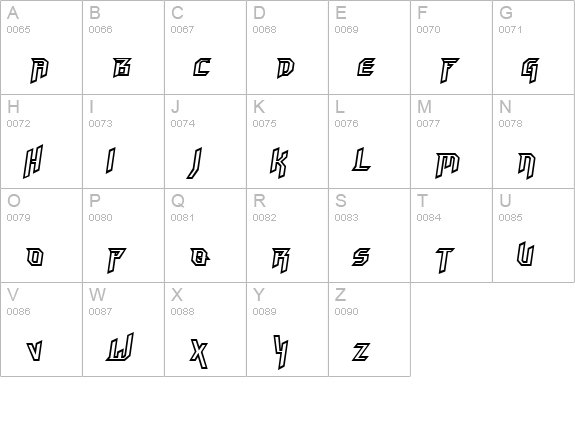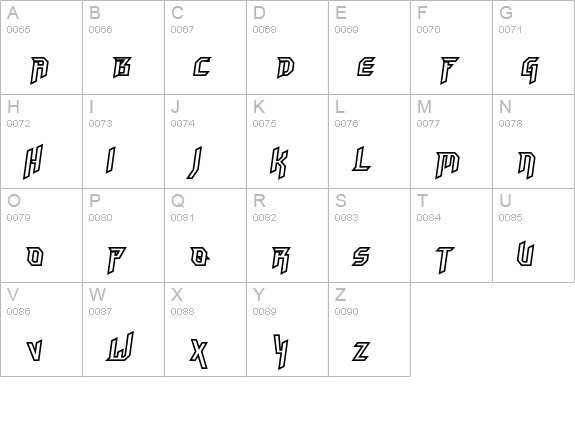
HammerheadOutline Italic Font Details
HammerheadOutline Italic is a distinctive, italic variant in the HammerheadOutline typeface family \xE2\x80\x94 well suited to design and typography projects.
HammerheadOutline Italic is a stunning and eye-catching font that will make any design project stand out. It is a perfect blend of boldness and elegance, making it ideal for both professional and creative endeavors. With its unique and distinctive letterforms, HammerheadOutline Italic exudes a sense of energy and dynamism that will captivate your audience. This font is freely available to download at FontsMarket.com, allowing you to bring your creative visions to life without any cost. Whether you are a graphic designer, web developer, or simply someone who appreciates beautiful typography, HammerheadOutline Italic is a must-have addition to your font collection. The italicized nature of this font adds a touch of sophistication and flair to your designs, making it perfect for headlines, logos, and branding materials. Its clean lines and well-defined curves contribute to its overall versatility, ensuring that it can be used in a wide range of applications. HammerheadOutline Italic is designed with meticulous attention to detail, resulting in a font that is both visually appealing and highly legible. Its unique style and character will make your projects stand out from the crowd, leaving a lasting impression on your audience. Don't miss out on this incredible opportunity to download HammerheadOutline Italic for free at FontsMarket.com. Take your designs to the next level with this impressive and versatile font that is sure to elevate any project to new heights.